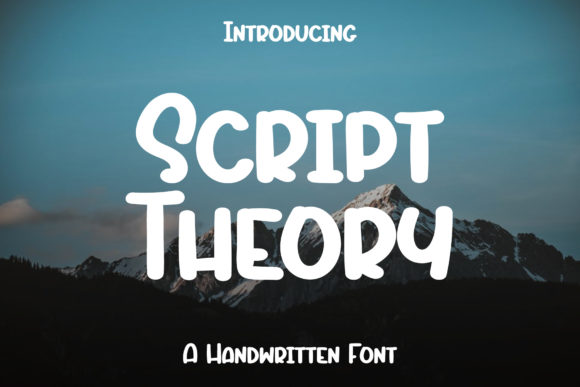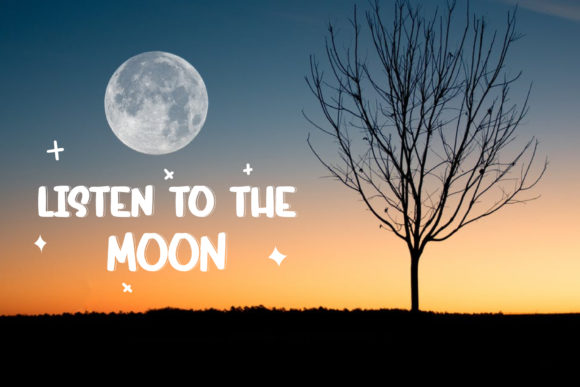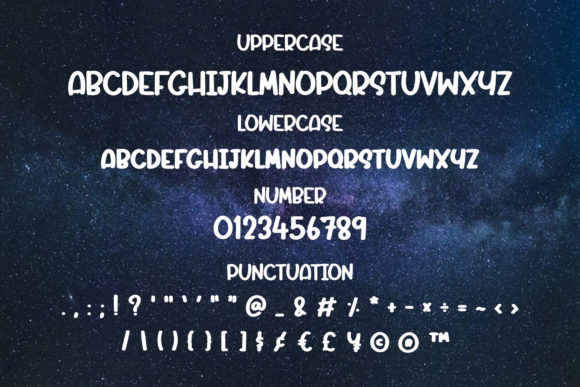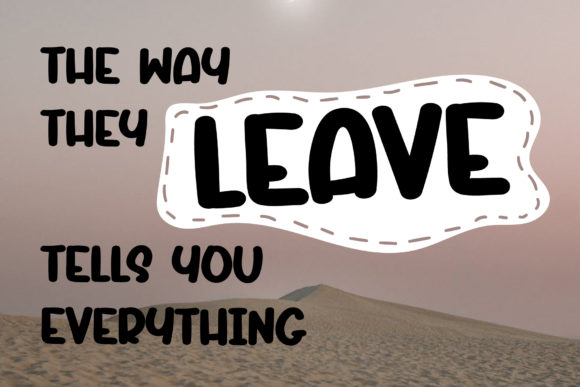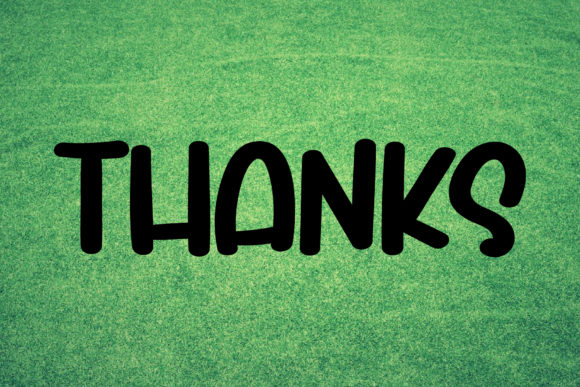
Script Theory Font
About Script Theory Font
Script Theory is a bold and simple handwritten font that brings a touch of charm and playfulness to your designs. With its clean and legible letterforms, this versatile script font is suitable for a wide range of applications, making it a great choice for various design projects.
Whether you’re creating greeting cards, invitations, or announcements, Script Theory adds a sweet and personal touch to your designs. Its simplicity and clarity make it easy to read and understand, ensuring that your message gets across effectively. The bold strokes and smooth curves of the letters give the font a friendly and approachable feel, making it suitable for both formal and informal occasions.
Additionally, Script Theory is well-suited for kids’ crafts and projects. Its whimsical and playful appearance adds a sense of fun and excitement, making it perfect for children’s book covers, educational materials, or any design aimed at young audiences. The boldness of the font also ensures good readability, making it easy for children to engage with the content.
The versatility of Script Theory extends beyond its applications. It can be used in various design styles, from modern and minimalist to vintage and nostalgic. You can experiment with different color combinations, textures, and effects to achieve the desired look and feel. The simplicity of the font allows it to complement other design elements without overwhelming them, making it a great choice for incorporating into logos, branding materials, and social media graphics.
In summary, Script Theory is a versatile and bold handwritten font that adds a sweet and playful touch to your designs. Whether you’re creating greeting cards, kids’ crafts, or other design projects, this font offers legibility and charm. Its simplicity and adaptability make it suitable for a wide range of applications, allowing you to bring your creative ideas to life with ease.